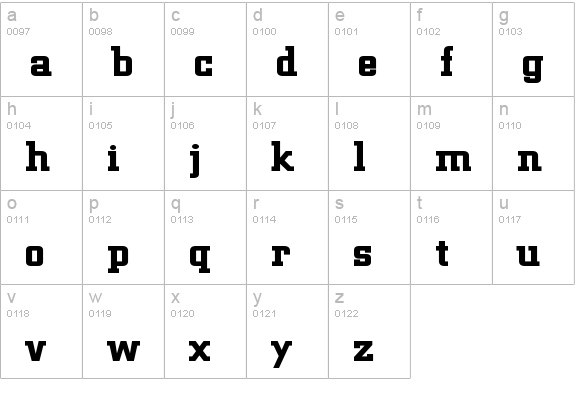
Geo 957 Wide Bold is a strong, high-contrast, extended-width variant in the Geo typeface family \xE2\x80\x94 well suited to headlines, attention-grabbing titles, and strong calls-to-action.
Introducing Geo 957 Wide Bold font, a robust and eye-catching typeface that commands attention with its bold and wide design. This font is perfect for making a statement in headlines, posters, logos, and other design projects where you want your text to stand out. What makes Geo 957 Wide Bold font even better is that it is freely available to download at FontsMarket.com. This means you can easily access this striking typeface and use it in your projects without any restrictions. Don't miss out on the opportunity to add this versatile and impactful font to your collection today!